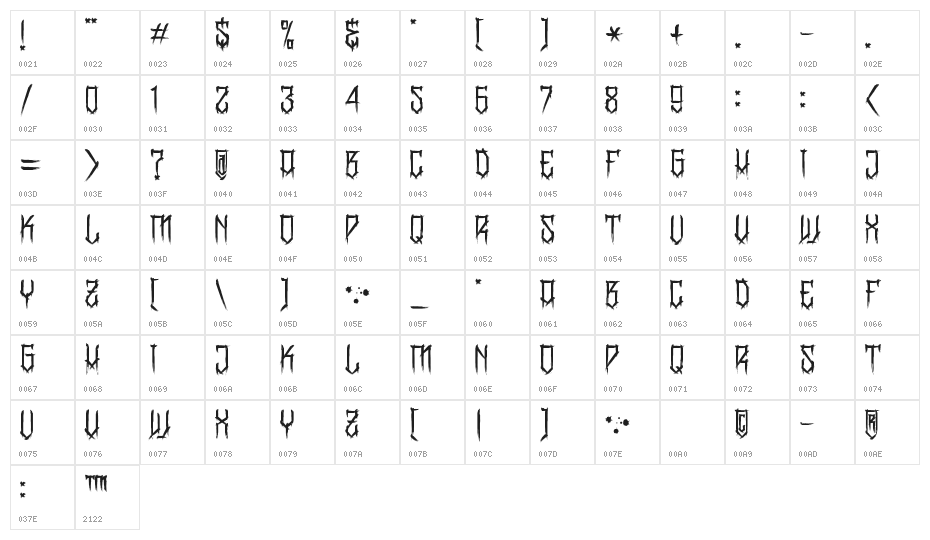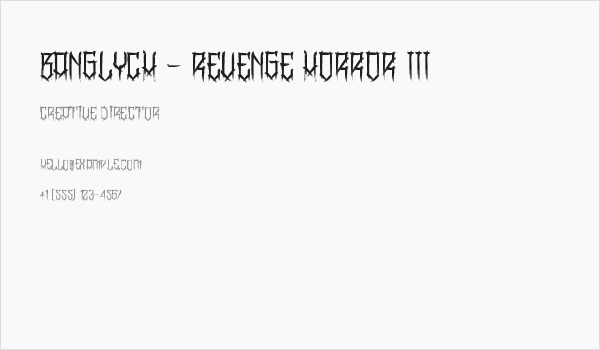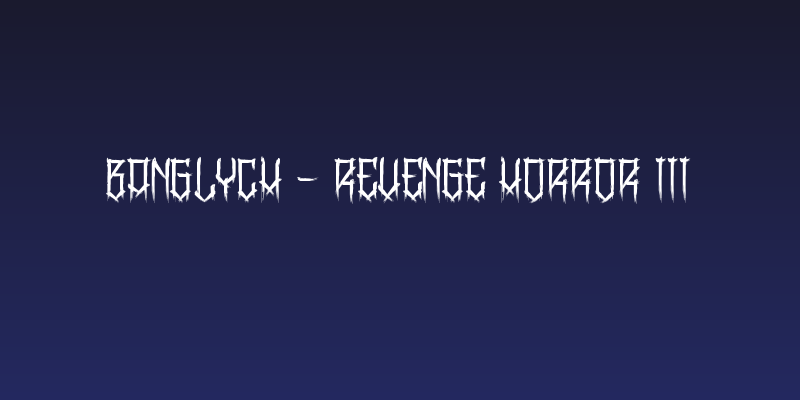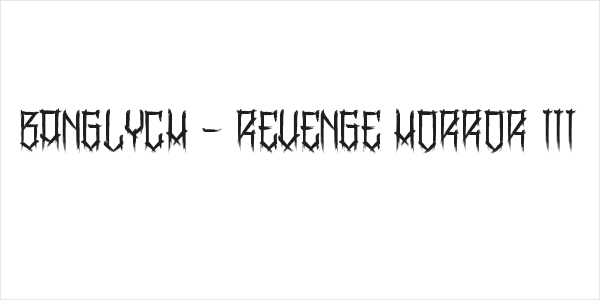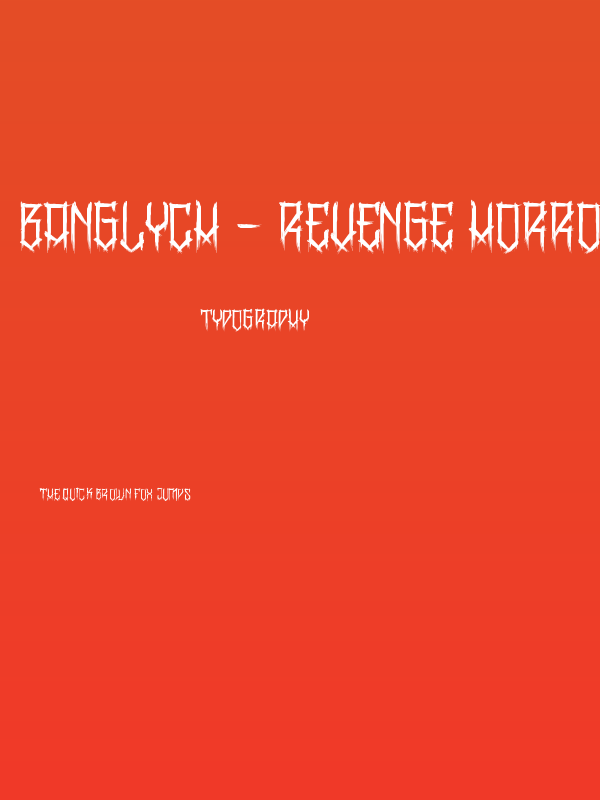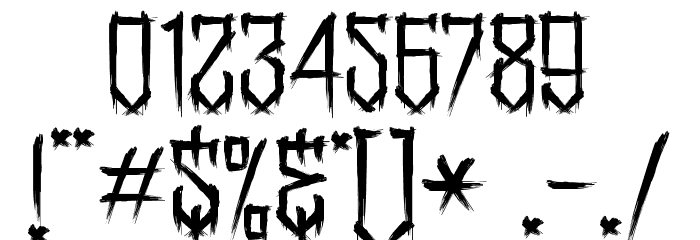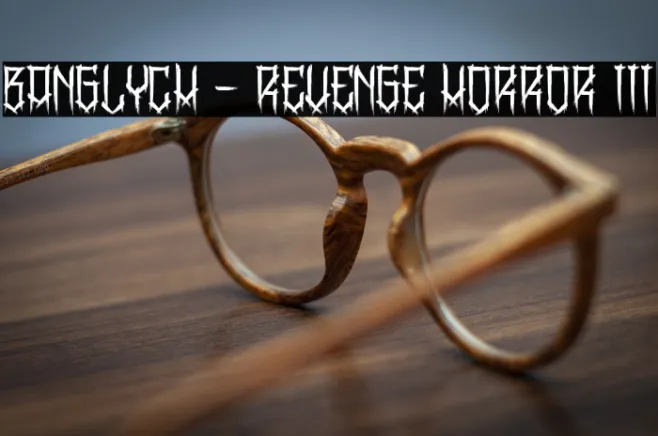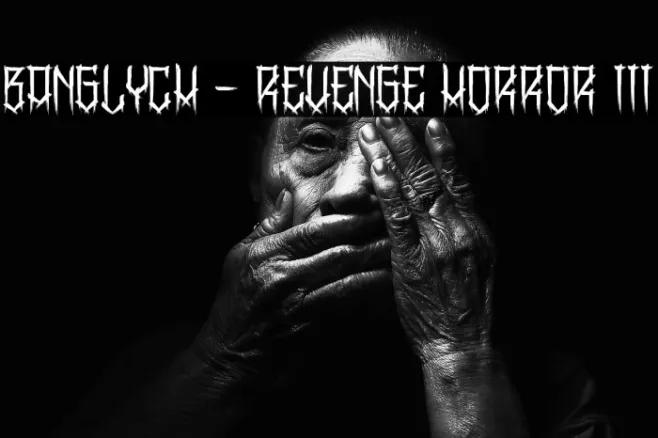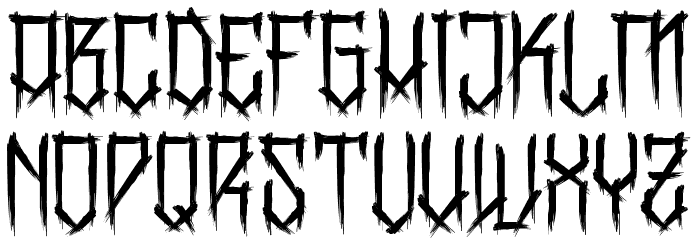
BangLYCH - Revenge Horror III Font
| Style général | Horror, Intense, Chaotic |
| Cas d'utilisation | Headlines, Posters, Themed Events |
| Projets proposés | Ideal for horror movie posters, Halloween event flyers, and spooky-themed graphic designs. |